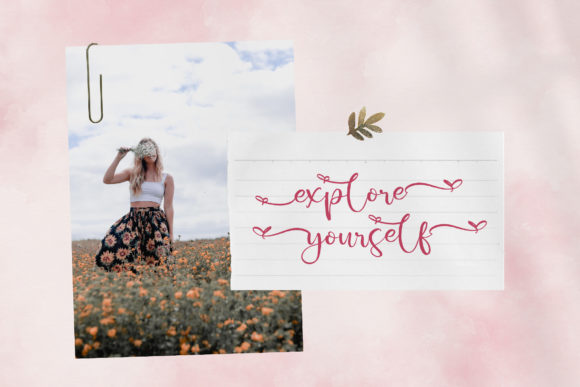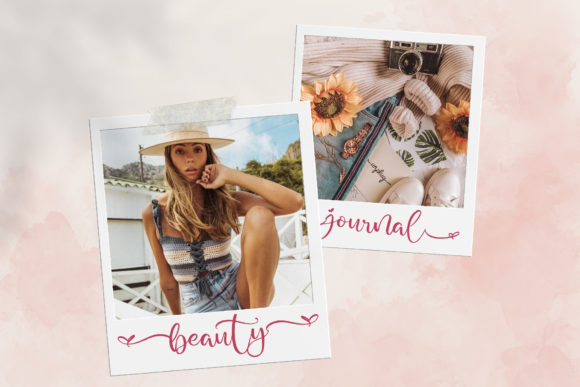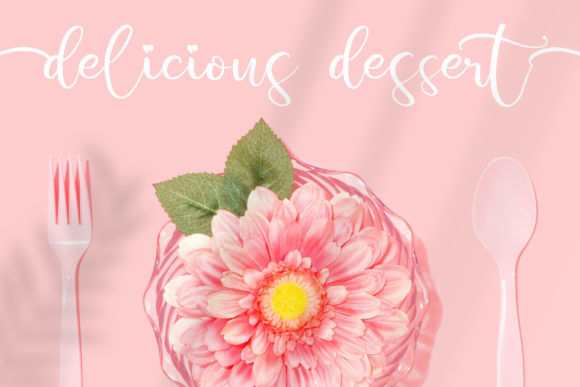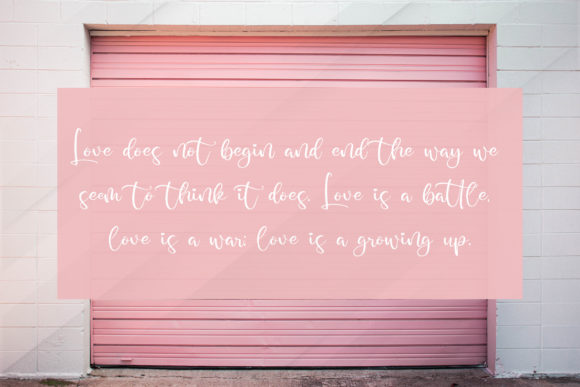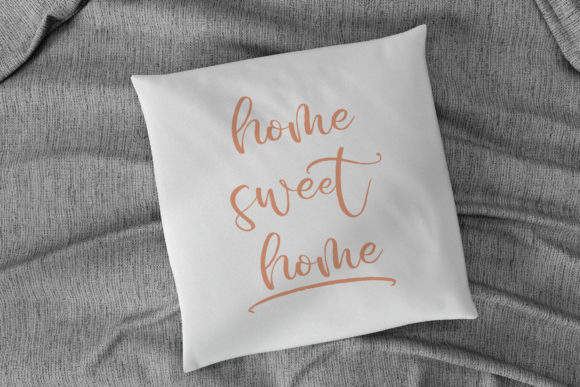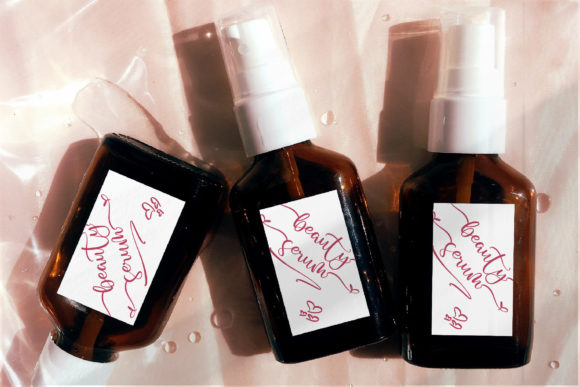
Introducing Casandra Belinda Font: Elevate Your Designs with Elegance and Sophistication
In the world of typography, a font can make or break a design. For designers and crafters seeking to add a touch of class and sophistication to their work, Casandra Belinda Font is an exceptional choice. This beautiful and refined script font boasts a modern look that is versatile enough to be used across various design projects, from logos and branding to invitations, stationery, wedding designs, social media posts, and more.
The Beauty of Casandra Belinda Font
What sets Casandra Belinda Font apart is its classy, elegant, and modern aesthetic. Each letter is carefully crafted to exude a sense of refinement and luxury, making it perfect for projects where a high-end feel is desired. Whether you’re designing a logo for a boutique brand, creating bespoke wedding stationery, or simply looking to elevate your social media graphics, Casandra Belinda Font offers the perfect blend of style and sophistication.
One of the standout features of Casandra Belinda Font is its PUA (Private Use Area) encoding. This means that users can access all glyphs and swashes with ease, providing greater flexibility and creativity in design. PUA encoding allows designers to unlock the full potential of the font, incorporating intricate details and flourishes that can make a design truly stand out.
Versatility Across Design Projects
The versatility of Casandra Belinda Font is one of its most compelling attributes. Here are just a few examples of how this elegant script font can be used:
- Logos and Branding: Create a lasting impression with a custom logo that embodies your brand’s elegance and sophistication.
- Invitations and Stationery: Add a touch of luxury to your event invitations, business cards, and letterheads.
- Wedding Designs: Make your wedding stationery, programs, and decor truly unforgettable with this beautiful font.
- Social Media Posts: Elevate your online presence with stylish and engaging social media graphics.
Why Choose Casandra Belinda Font?
With so many fonts available, why choose Casandra Belinda? Here are a few reasons why designers and crafters are gravitating towards this elegant script font:
- Unique and Memorable: Stand out from the crowd with a font that is both distinctive and captivating.
- Easy to Use: Thanks to PUA encoding, accessing and incorporating glyphs and swashes is straightforward.
- Highly Versatile: Suitable for a wide range of design projects, from digital to print.
- Elegant and Sophisticated: Adds a touch of class and luxury to any design.
For designers and crafters seeking to infuse their work with elegance, sophistication, and a modern edge, Casandra Belinda Font is an outstanding choice. Its refined aesthetic, combined with the ease of use provided by PUA encoding, makes it a valuable addition to any design toolkit. Whether you’re working on a logo, branding, wedding designs, or social media posts, Casandra Belinda Font offers the perfect blend of style, versatility, and creativity. Discover the difference this beautiful script font can make in your designs today.